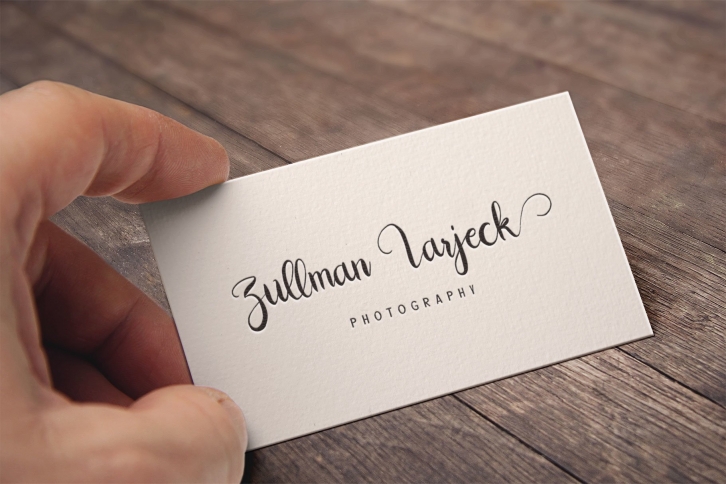
Cmayatea is a trendy and unique font with an authentic style. It was designed by alit suarnegara and it's a great choice for creative people who need such a font. It was released on October 14, 2020 and the file size is 2.71 MB. Cmayatea will add an organic vibe to any design idea!